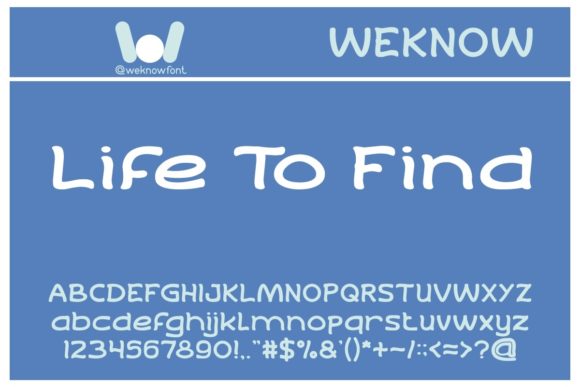
Introducing Life to Find Font, the ultimate display font family that will add a touch of coolness, casualness, and fun to your creative projects. Whether you're a designer working on a captivating poster, a filmmaker crafting an unforgettable movie title, or a gamer creating an immersive game world, Life to Find Font is the perfect choice.
This remarkable display font exudes a unique charm that effortlessly captures attention and leaves a lasting impression. Its playful and inviting curves invite viewers to engage with your content, while its distinct character adds a touch of personality and creativity to your designs.
With Life to Find Font, you can effortlessly elevate your apparel designs, creating t-shirts, hoodies, and accessories that stand out from the crowd. Its bold and eye-catching presence makes it ideal for posters, grabbing attention and ensuring your message is seen.
Step into the world of music and movies with Life to Find Font, where it shines as a mesmerizing choice for album covers, movie titles, and promotional materials. Its dynamic energy perfectly complements the pulse of music and the visual spectacle of film.
For those seeking a font that captivates and inspires, Life to Find Font is the answer. Its versatility extends to magazines, books, comics, and cartoons, bringing life and personality to every page.
In the digital realm, Life to Find Font reigns supreme. It's the perfect font for YouTube videos, Instagram posts, and website headers, instantly engaging your audience and leaving a lasting impression.
So, embark on a creative journey with Life to Find Font, where your imagination knows no bounds. Its endless possibilities will transform your projects into captivating works of art, leaving your audience mesmerized.